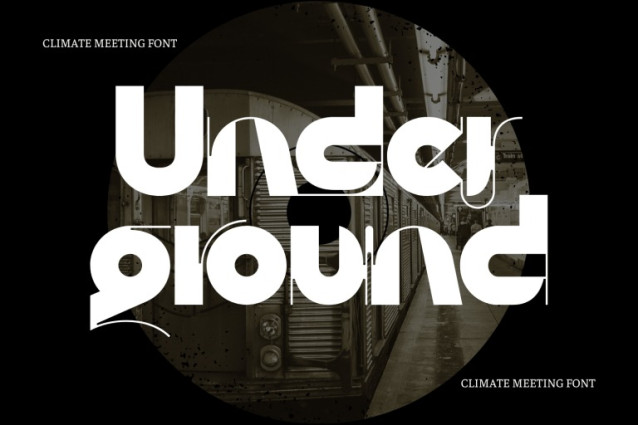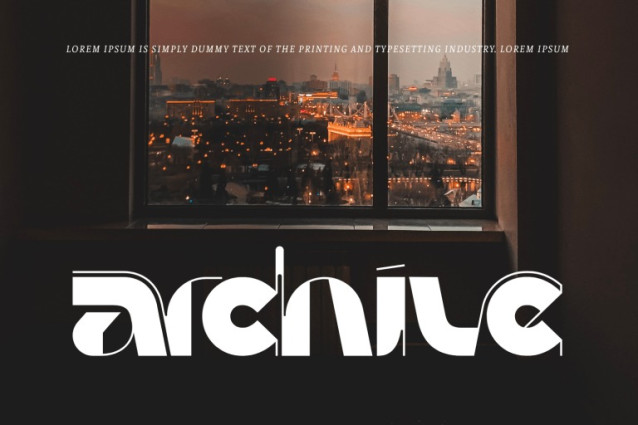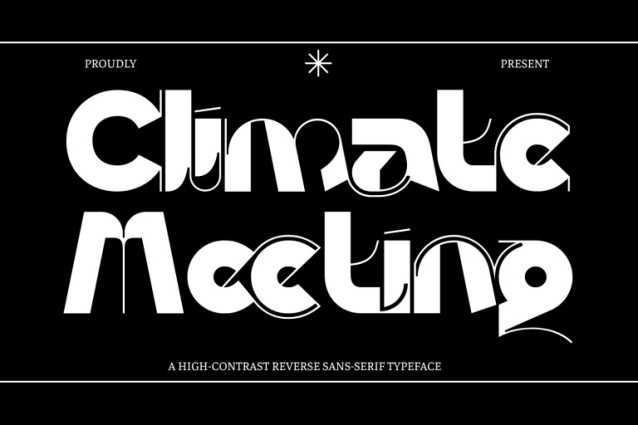
Climate Meeting Font
Climate Meeting – Geometric Font is a high-contrast reverse sans-serif display font designed with bold shapes, playful geometry, and experimental letterforms. Its unique contrast system, expressive curves, and decorative connections create a distinctive visual rhythm that feels both modern and retro. With its strong personality and artistic structure, Climate Meeting is perfect for posters, editorial headlines, creative branding, album covers, packaging, and statement logo design.
🔤Features:
Uppercase & Lowercase Letters
Around 100 Special Ligatures & Alternates
Accented Characters for multilingual support
🔤About 100 ligatures combined with Stylistic Alternates Font: